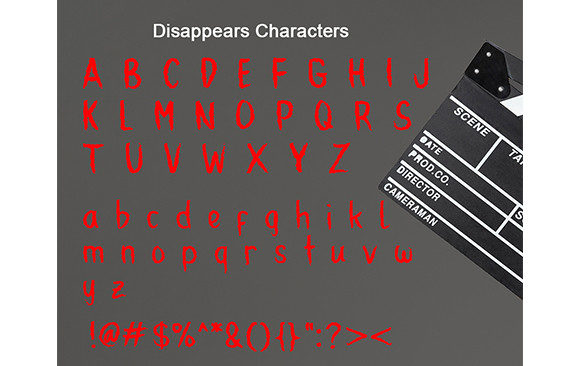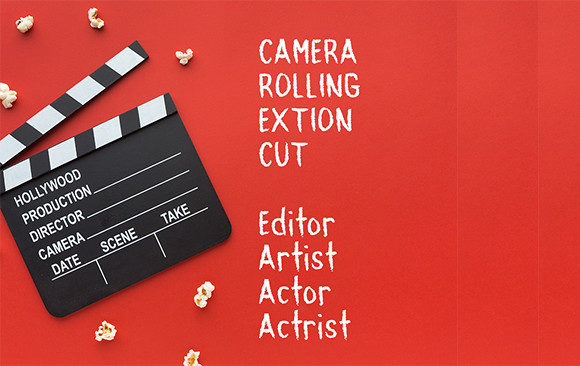
Introduction to Disappears Font
Disappears is a cool and creepy looking, brushed display font.
Add it to each of your creative design that requires a dramatic touch and notice how it instantly stands out .
Key Features of Disappears Font
Why Choose Disappears Font?